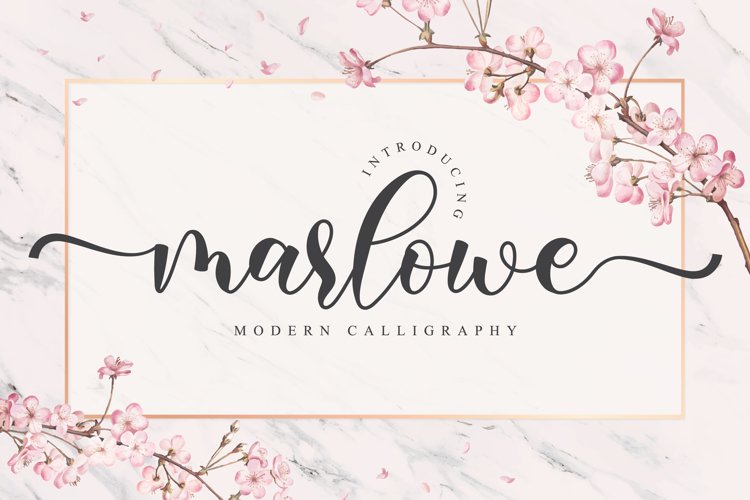
Marlowe is stylish homage to classic calligraphy. It has an elegant and modern look which can be used for logos, branding, invitations, stationary, wedding designs, social media posts, and every other design that needs a handwritten touch.
This font is PUA encoded which means you can access all of the glyphs and swashes with ease! It also features a wealth of special features including alternate glyphs and ligatures.